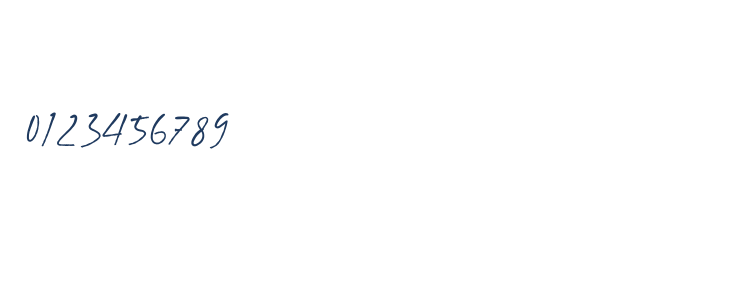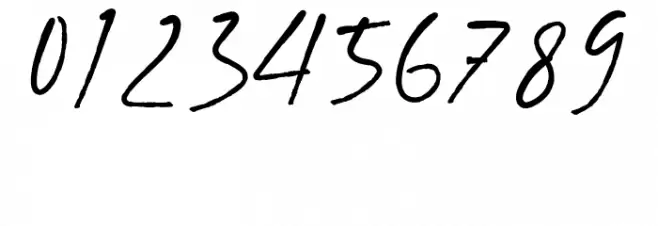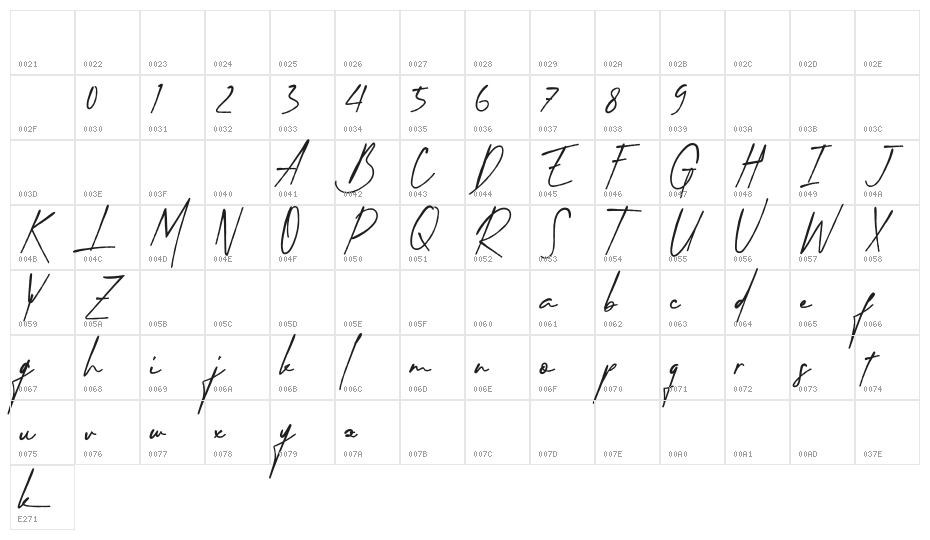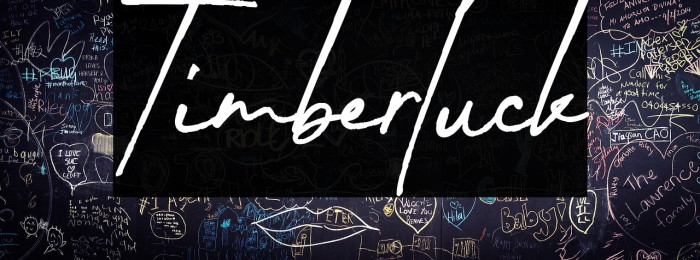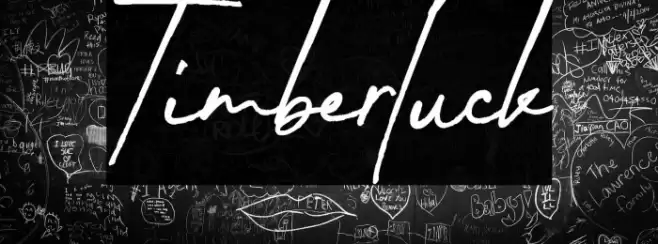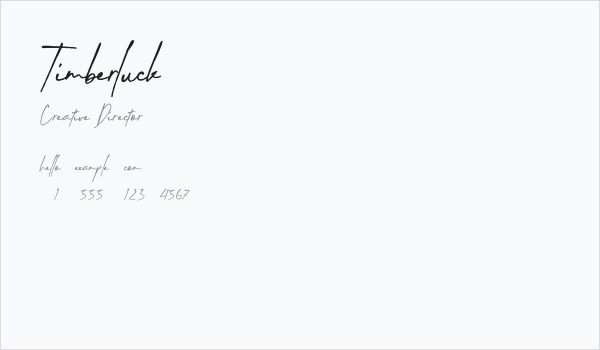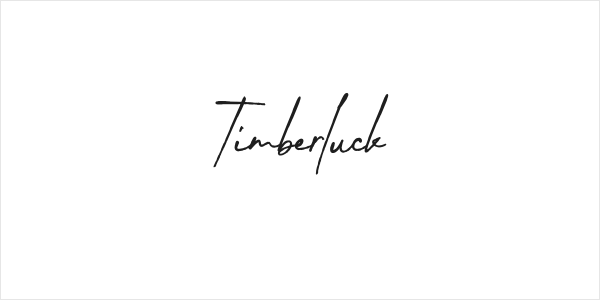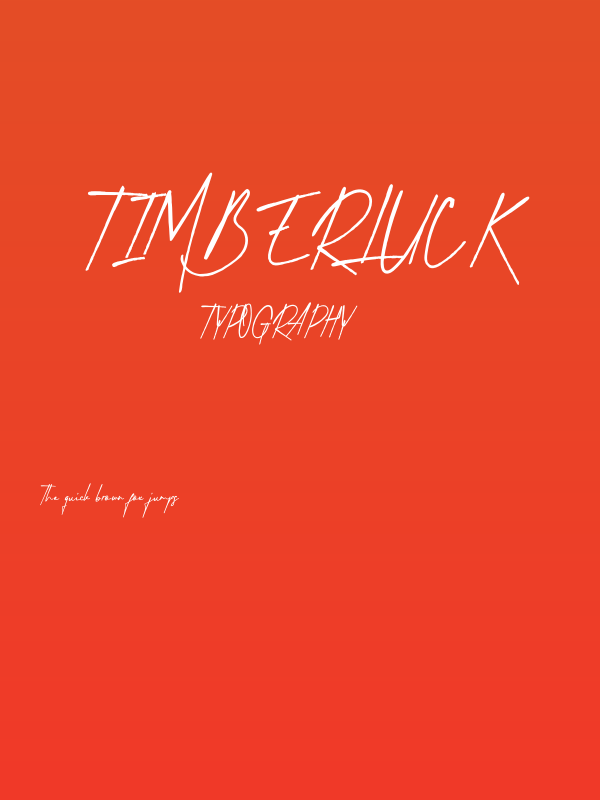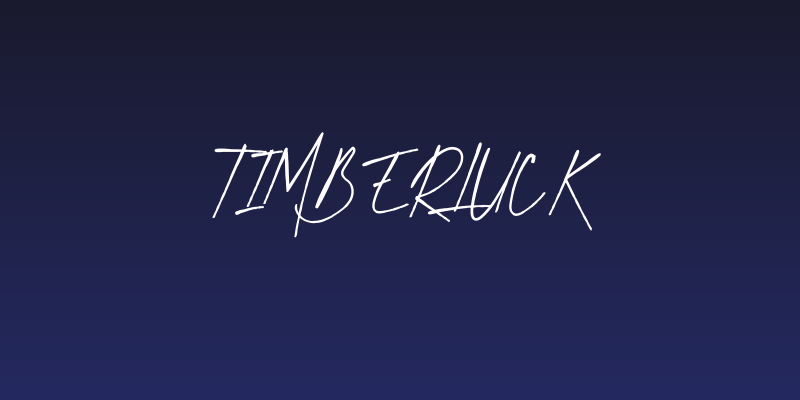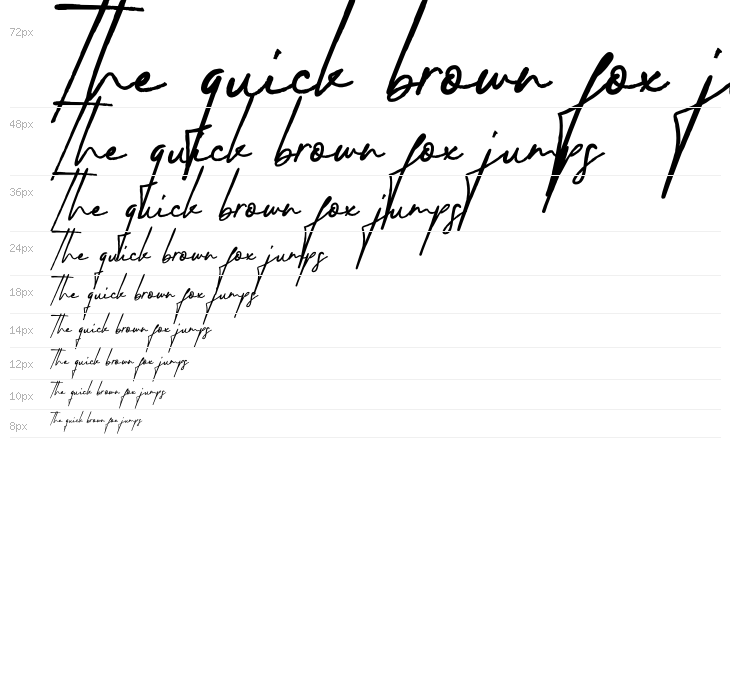
Timberluck Font
Timberluck Description
This font features a dynamic and expressive handwritten style, characterized by its fluid and organic strokes. The uppercase letters are tall and slender, with a slight slant that adds a sense of motion and energy. The lowercase letters maintain a consistent flow, with some characters connecting seamlessly, enhancing the handwritten feel. Numbers and special characters are crafted with the same attention to detail, ensuring a cohesive look across all elements. The overall appearance is both artistic and legible, making it suitable for creative projects that require a personal touch.
| Overall Style | Artistic |
| Proposed Projects | Ideal for greeting cards, personal branding, artistic posters, and creative invitations. |